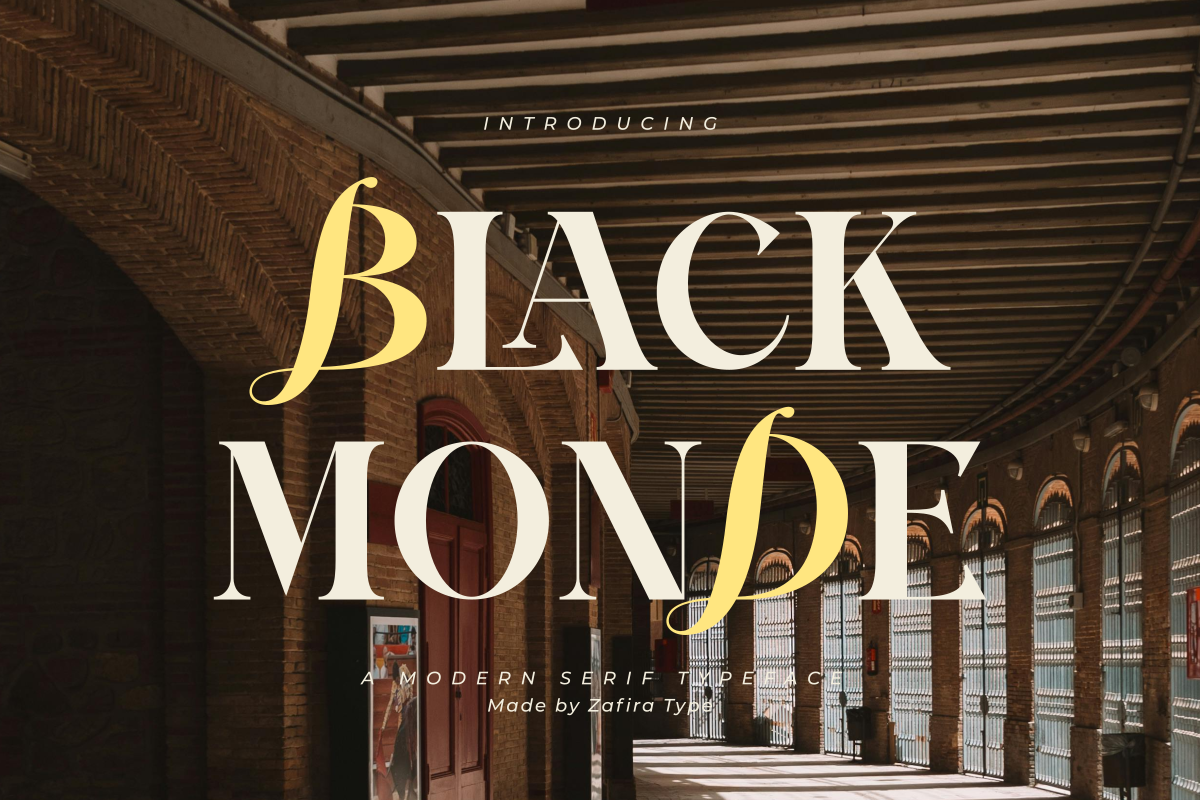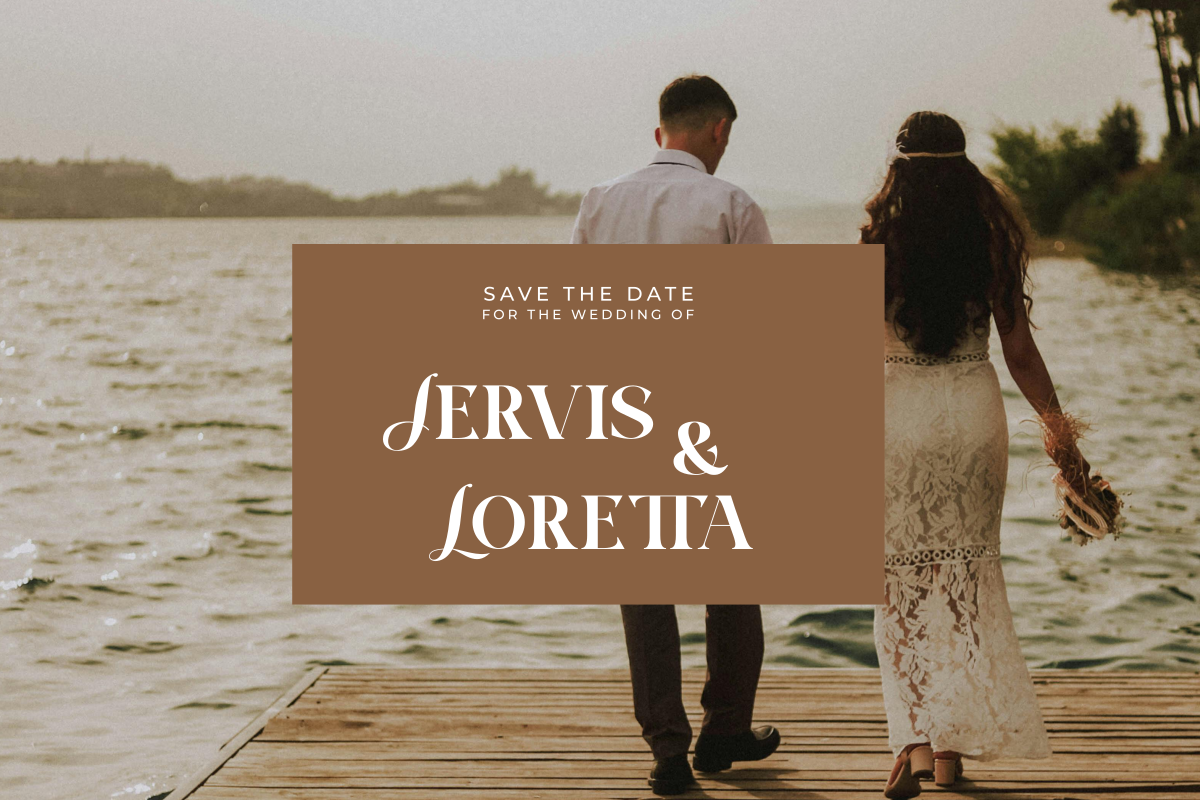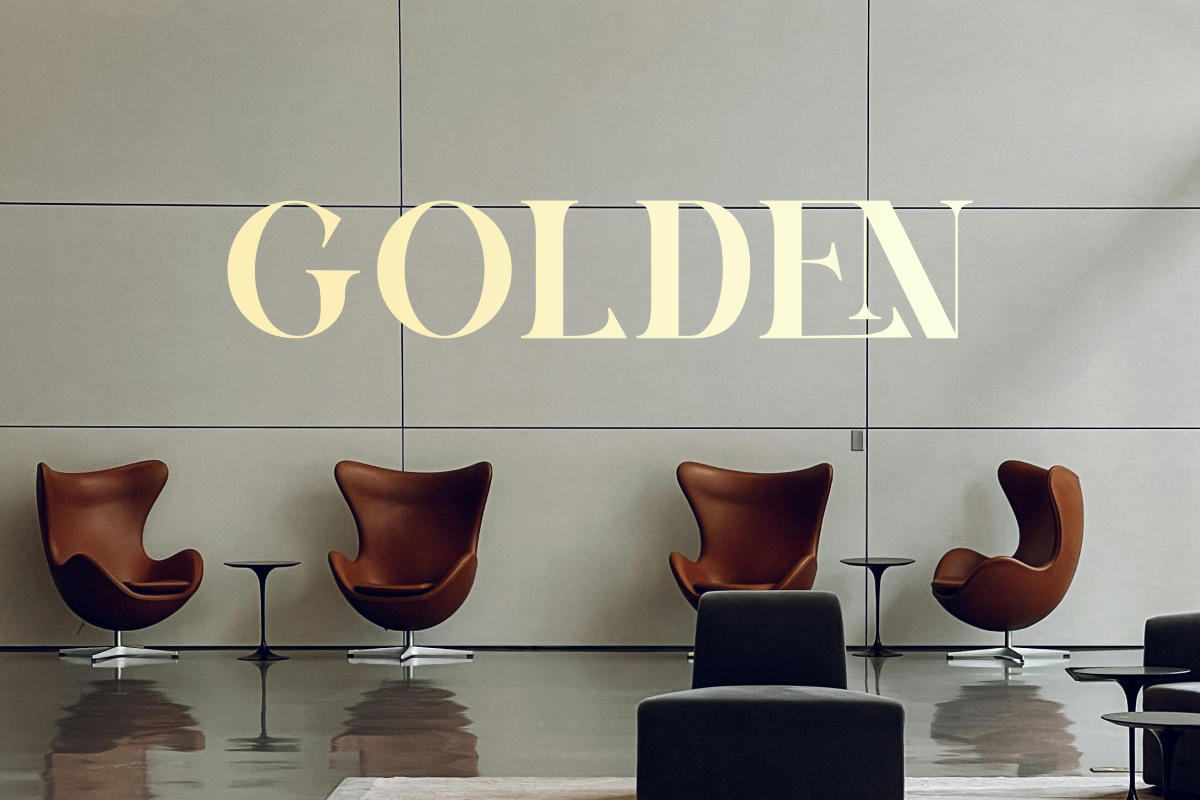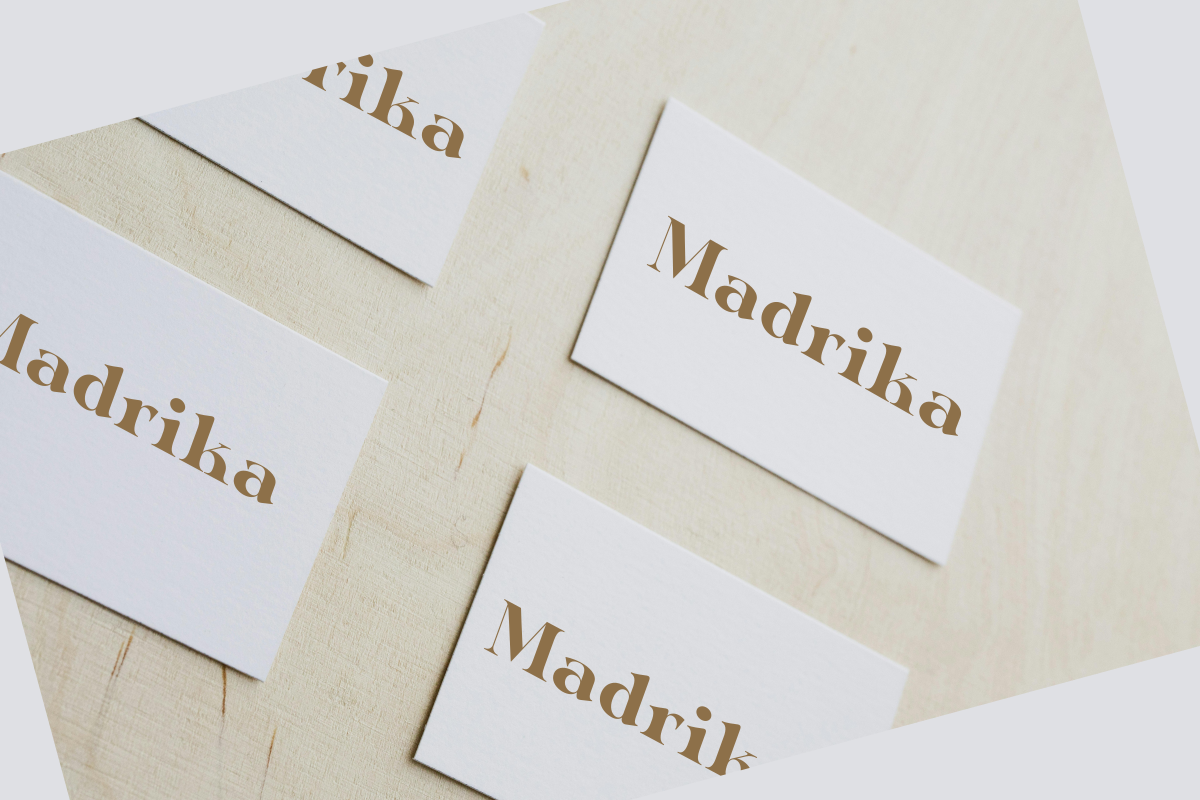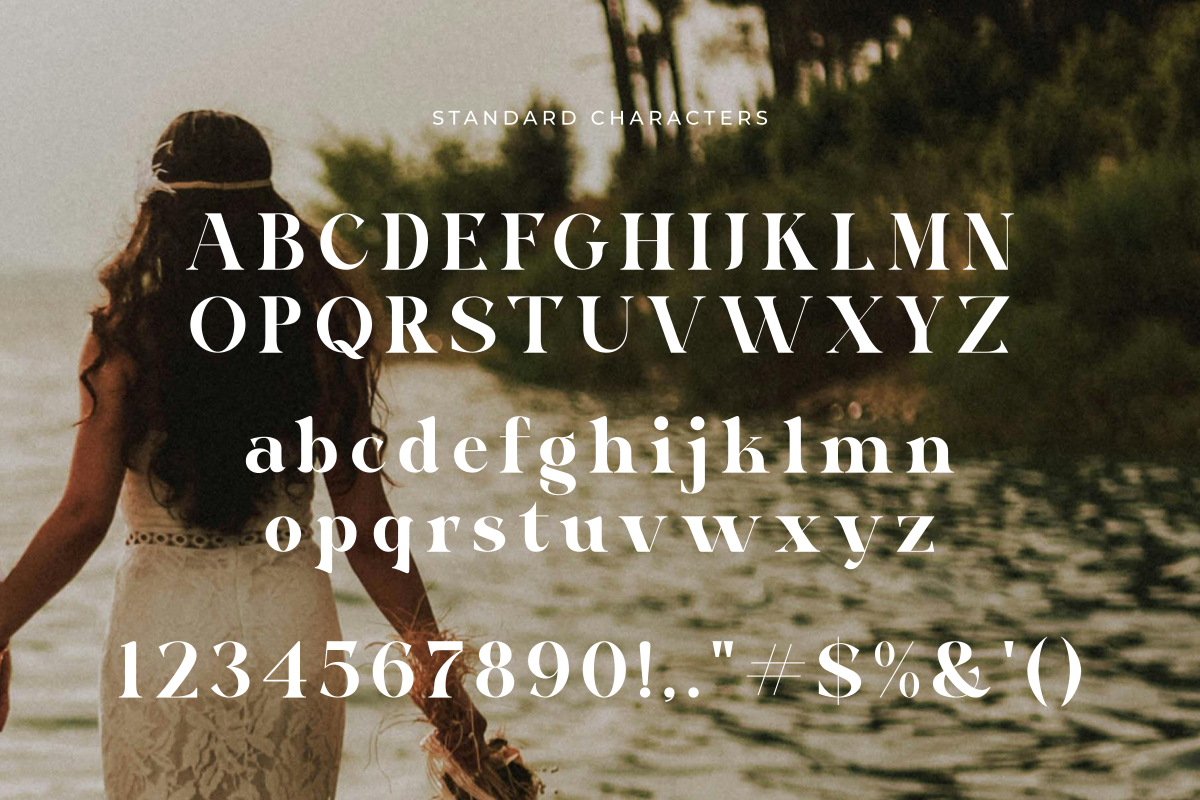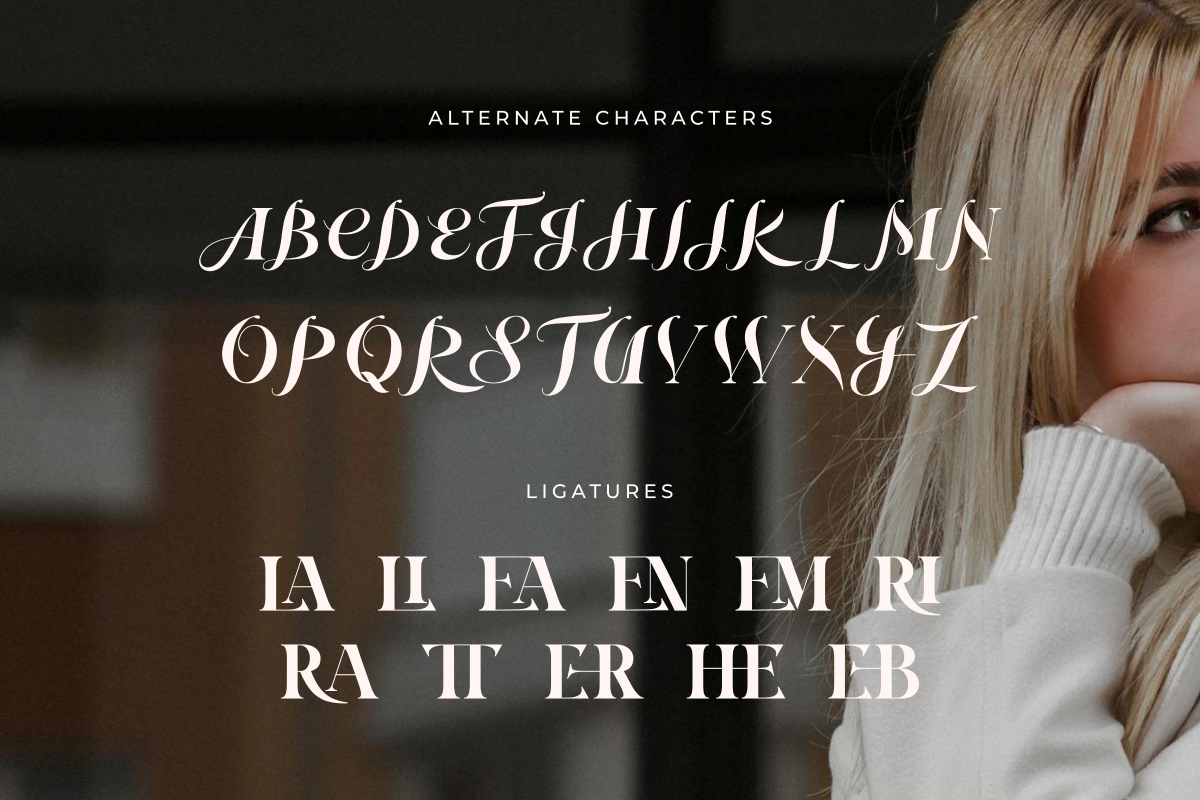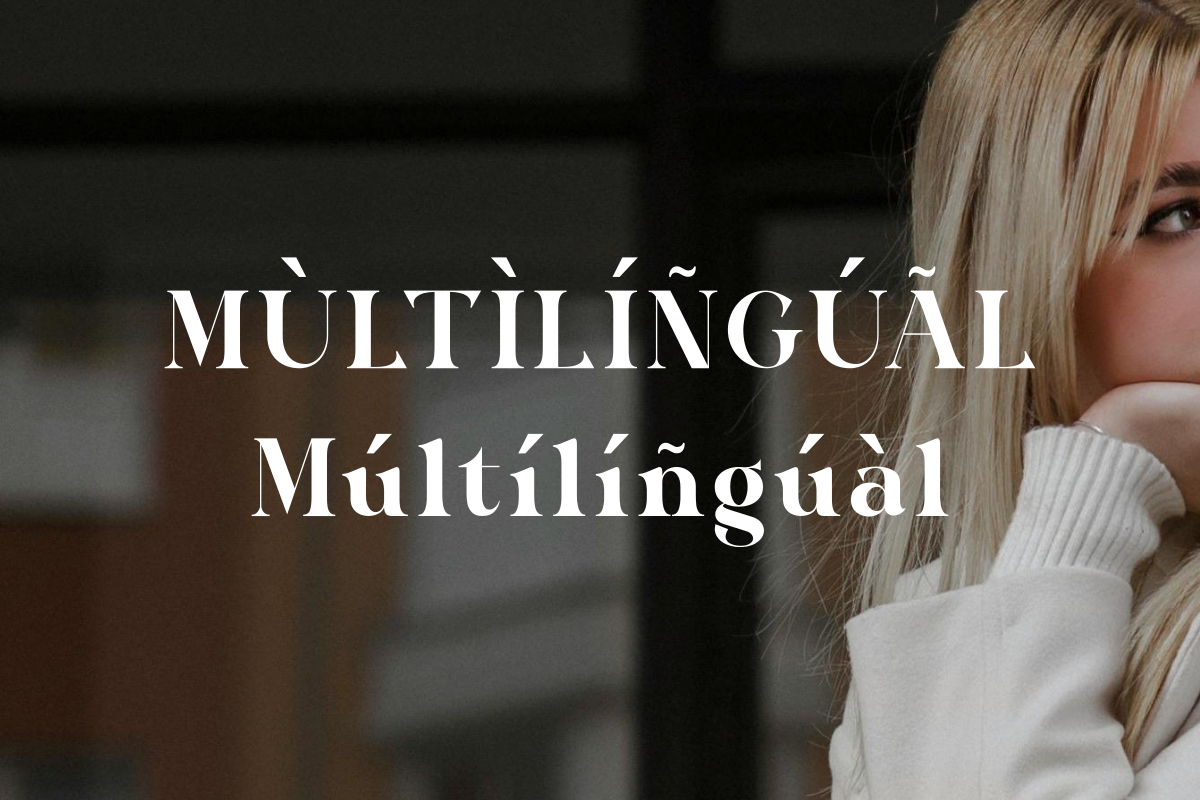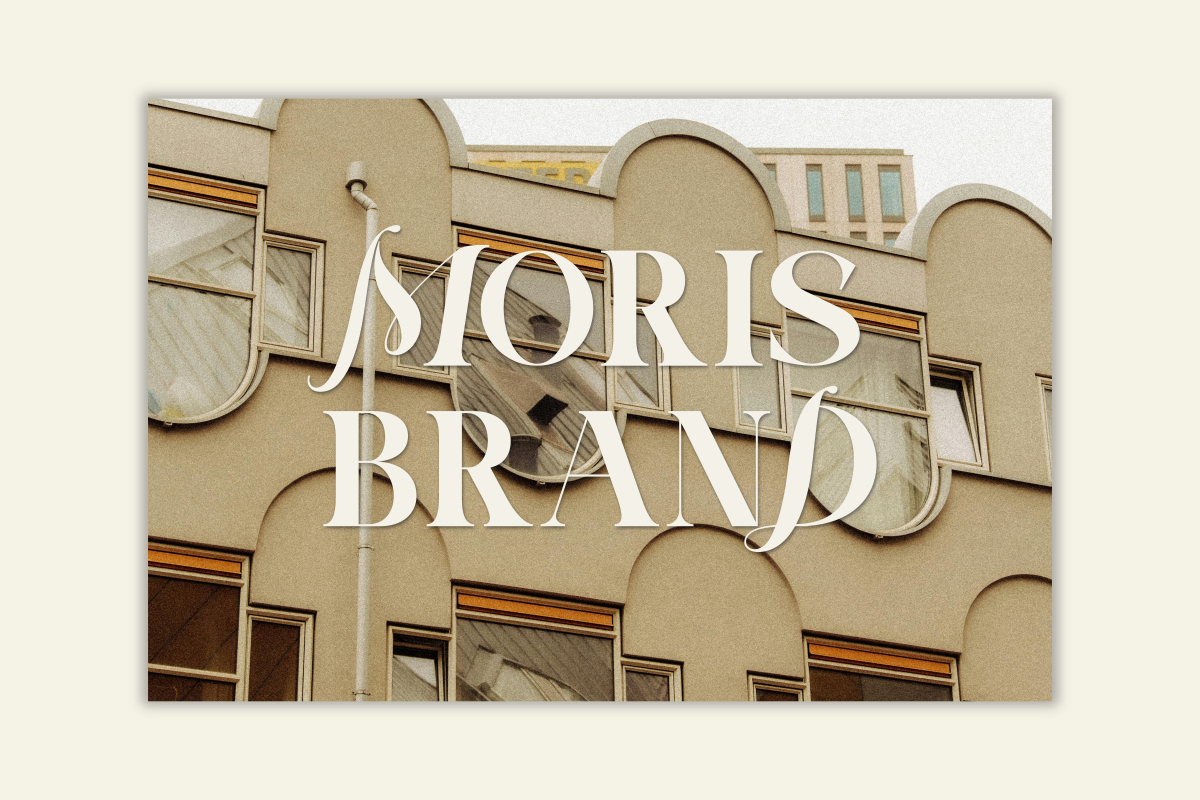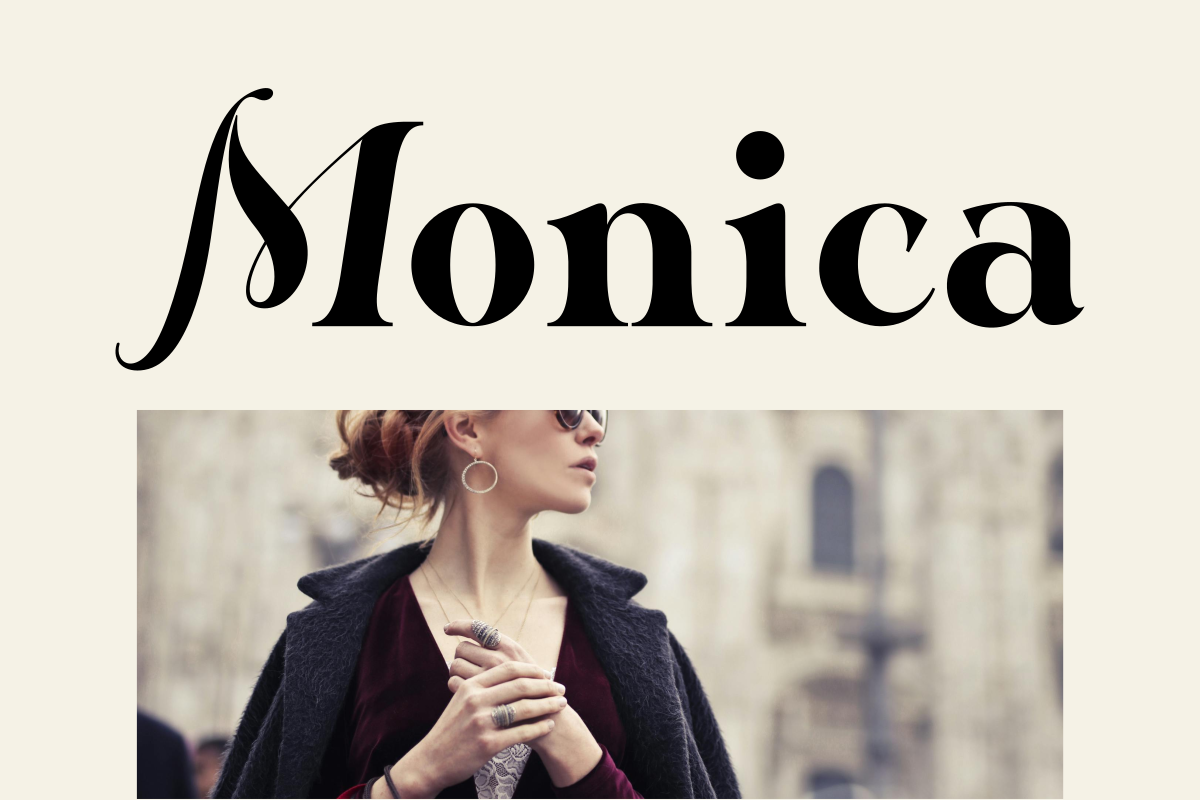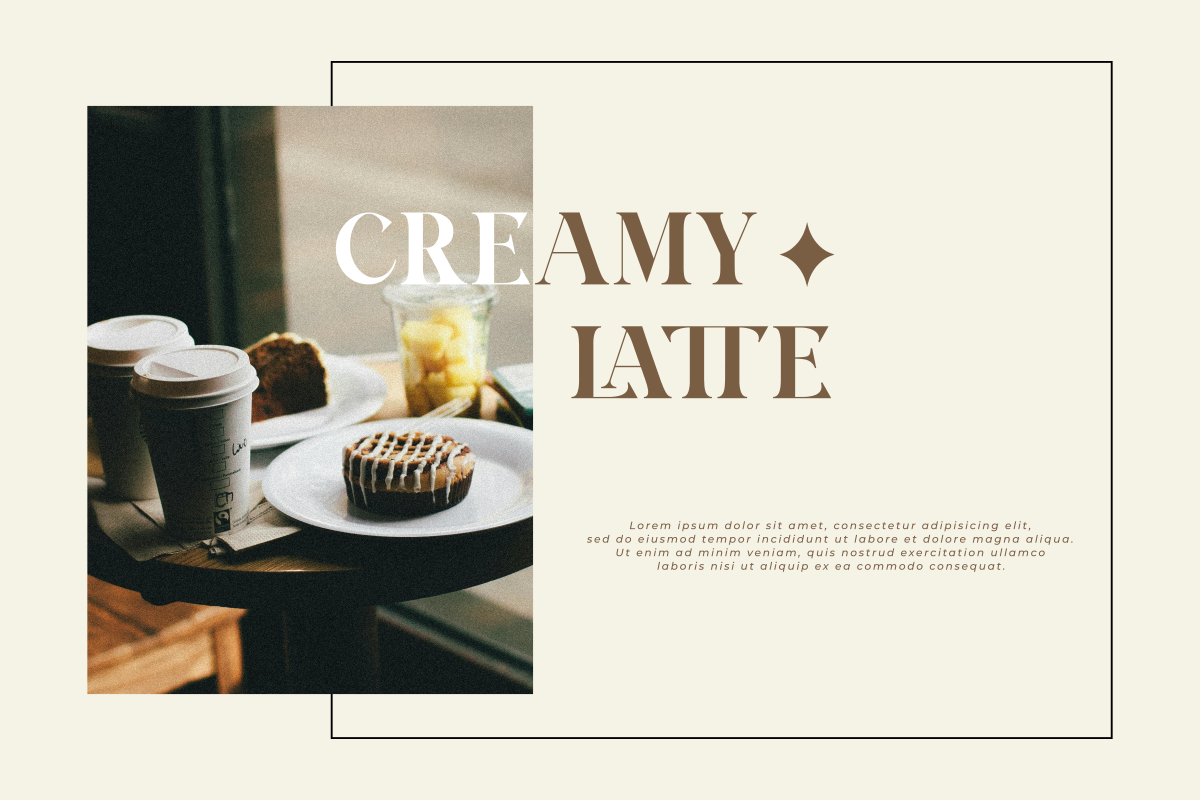
Black Monde
Black Monde is a timeless serif font designed to exude both elegance and power. With its refined yet striking letterforms, this typeface is perfect for designers seeking to add a sense of sophistication to high-end branding, editorial work, or luxury packaging. The serif details bring a classic touch, while the overall weight and proportions of the letters provide a modern feel, making it versatile for various design applications.
Ideal for headlines, logos, or any project that demands a commanding presence, Black Monde combines beauty with function, offering a perfect balance of tradition and contemporary aesthetics.
– Standard glyphs
– Multilingual
– Symbols and Number